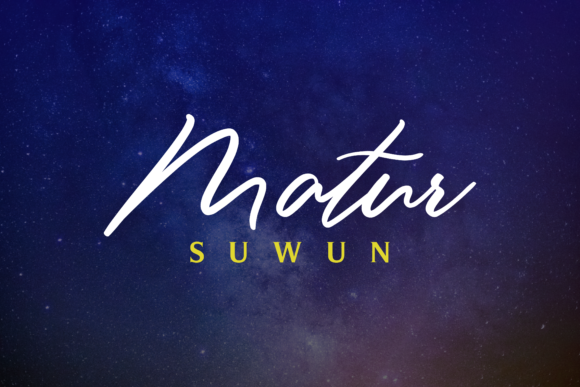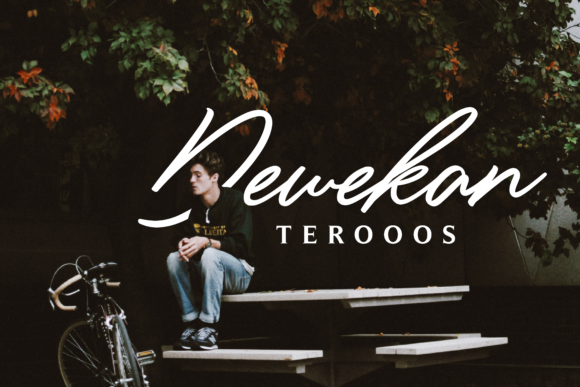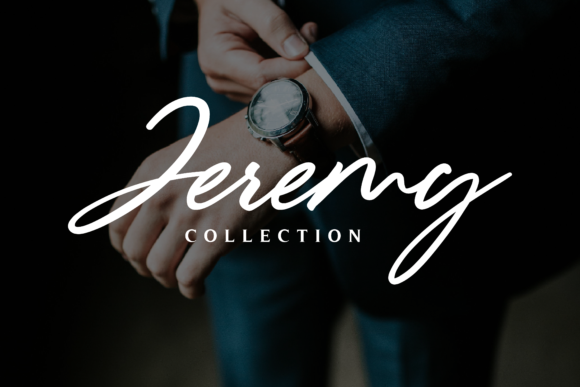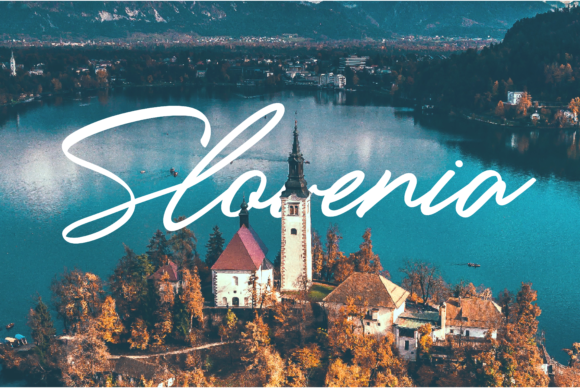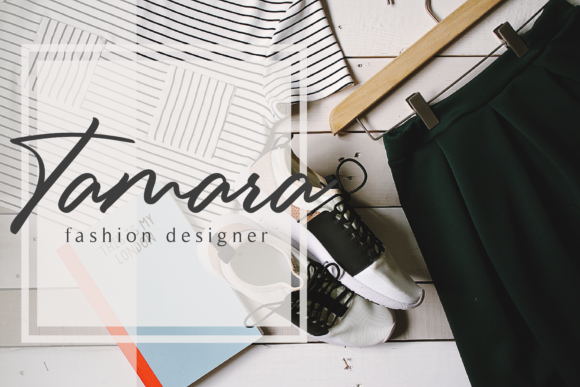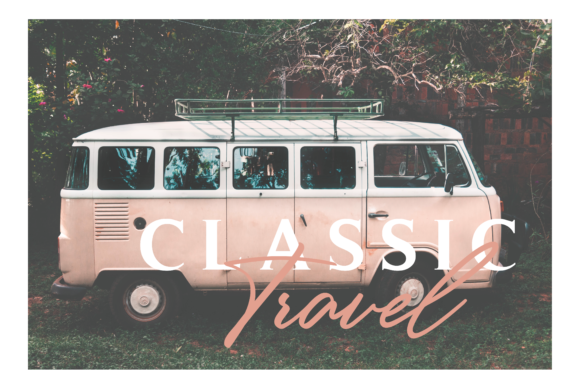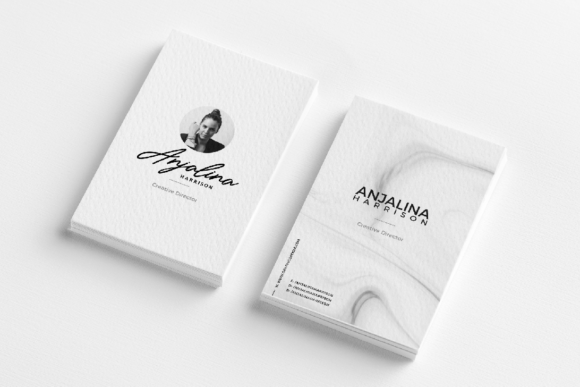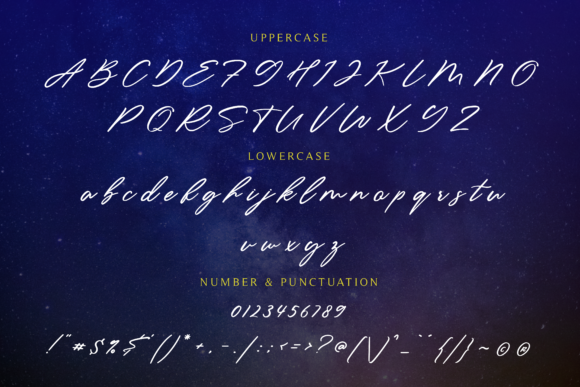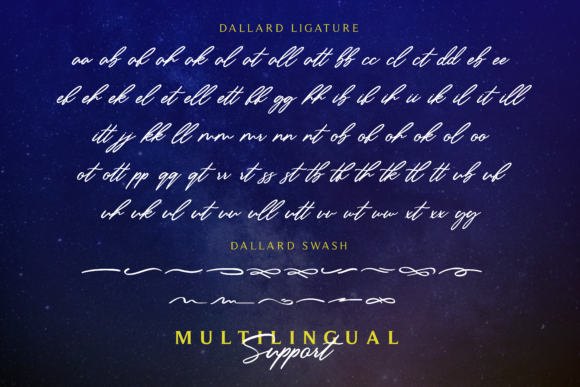
Dallard Font
About Dallard Font
The Dallard is a modern calligraphy font. It has an amazing handwritten style which can be used for watermarks, signatures, logos, business cards, branding, and much more!